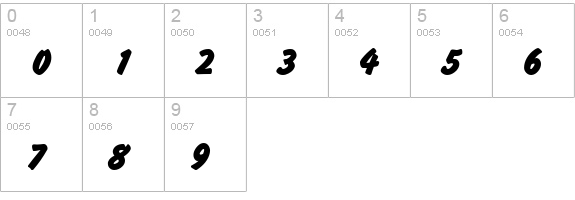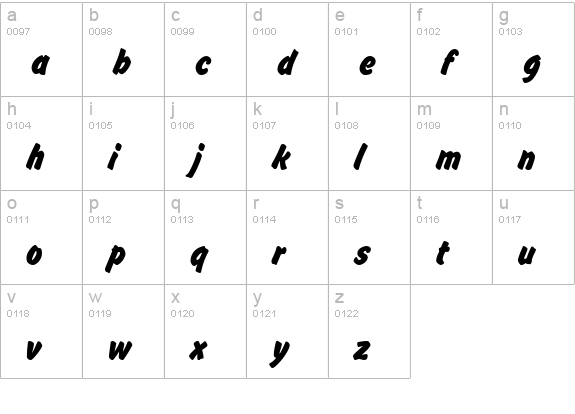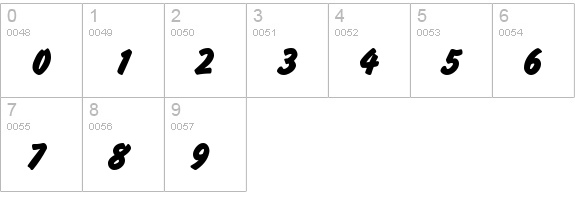
BrushHand Regular Font Details
BrushHand Regular is the standard, neutral variant in the BrushHand typeface family \xE2\x80\x94 well suited to general body text, paragraphs, and standard typographic work.
BrushHand Regular font is a charming and versatile typeface that exudes a casual and handwritten feel. With its flowing strokes and natural hand-drawn look, this font is perfect for adding a personal touch to your designs. Whether you're creating invitations, posters, or social media graphics, BrushHand Regular is sure to make your text stand out. Best of all, BrushHand Regular font is completely free to download at FontsMarket.com. You can easily access this stylish font and use it in your projects without any cost. Embrace the creativity and uniqueness that BrushHand Regular brings to your work and give your designs a fresh and distinctive look today.